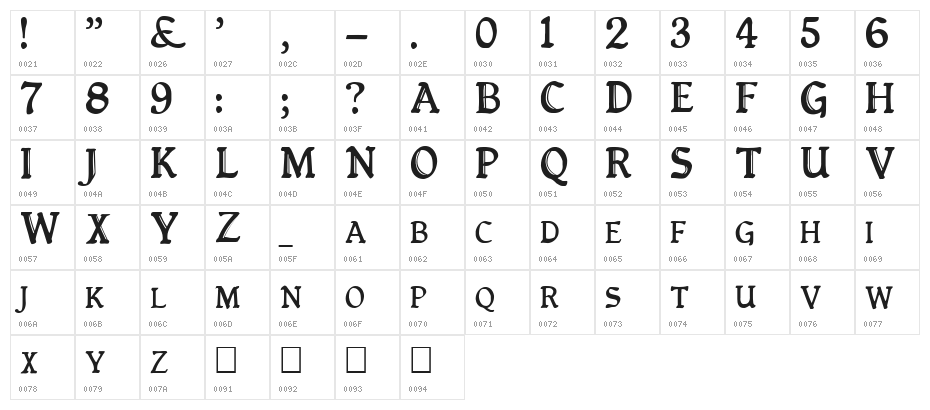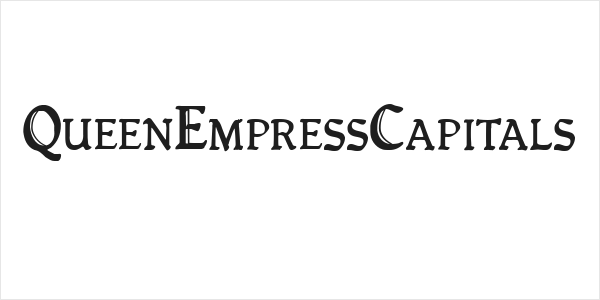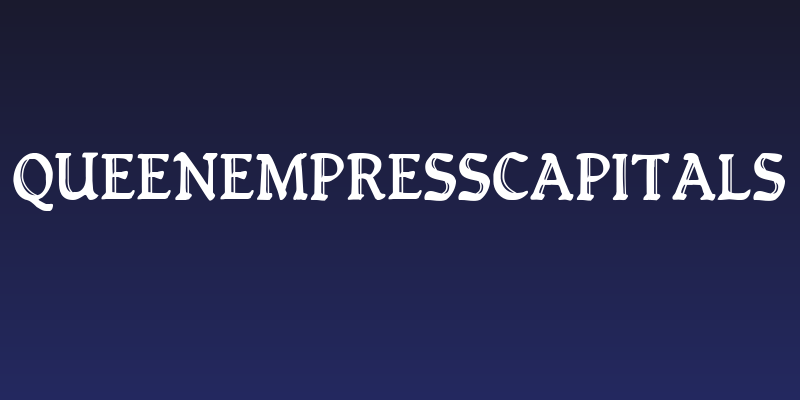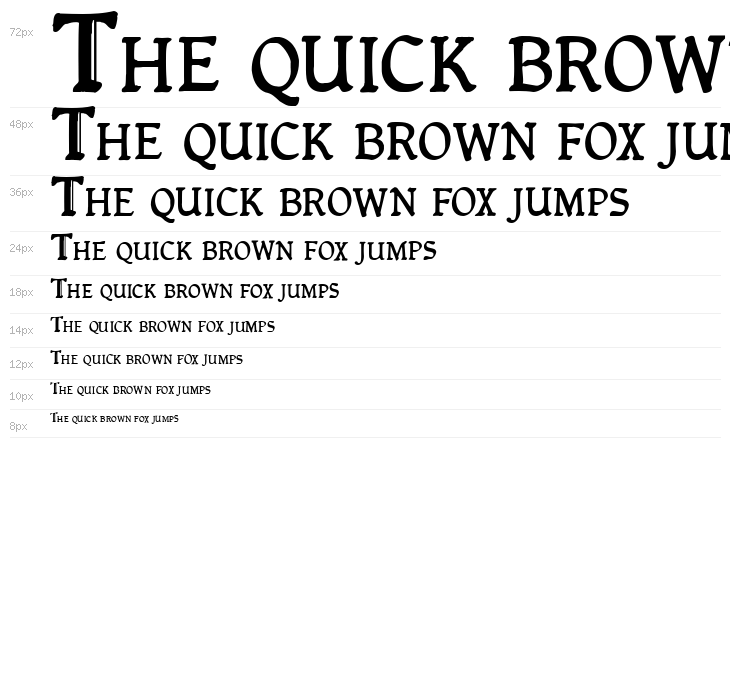
QueenEmpressCapitals Font
QueenEmpressCapitals Description
This font features a classic serif style with a touch of elegance and sophistication. The uppercase letters are bold and prominent, with distinct serifs that add a traditional feel. The numerals are equally bold, maintaining the same serif characteristics, which ensures consistency across different types of text. The special characters are designed to match the overall aesthetic, providing a cohesive look. The font's design is reminiscent of historical typefaces, making it suitable for projects that require a touch of vintage charm. Its readability and classic appeal make it versatile for various applications.
| Proposed Projects | Ideal for book covers, historical documents, formal invitations, and branding that requires a classic touch. |